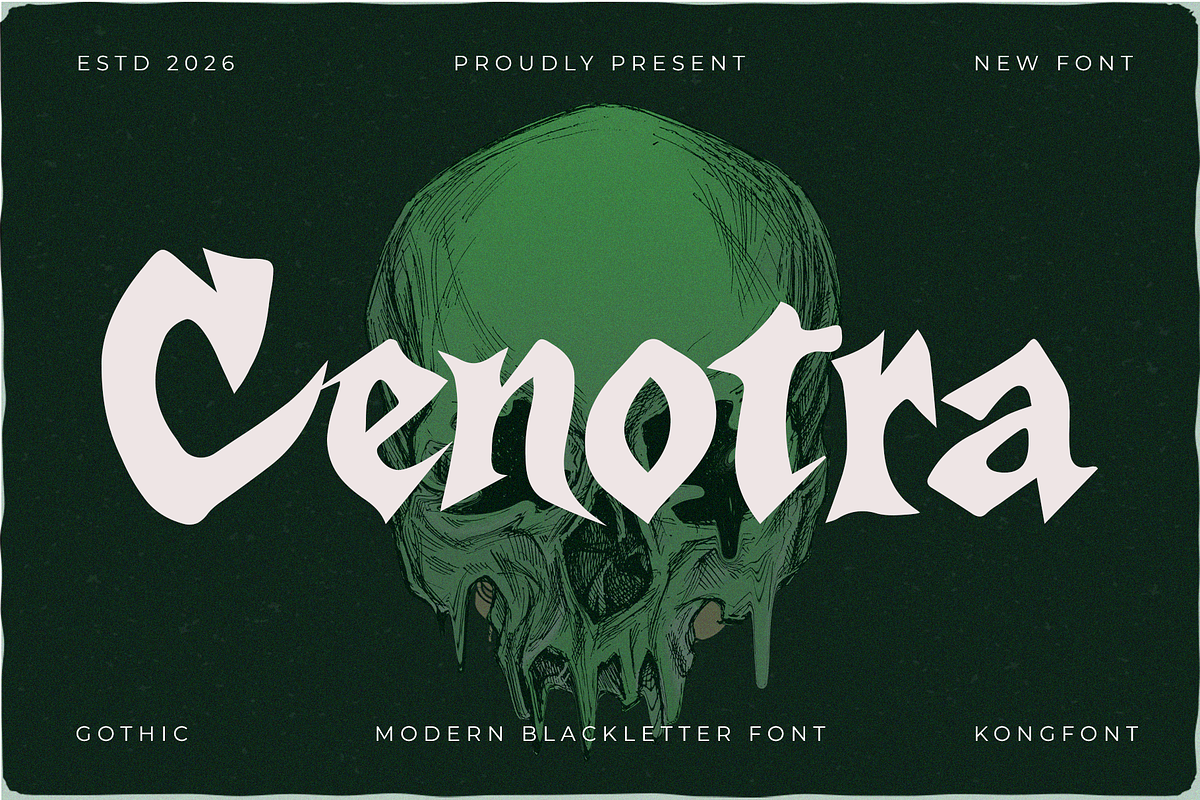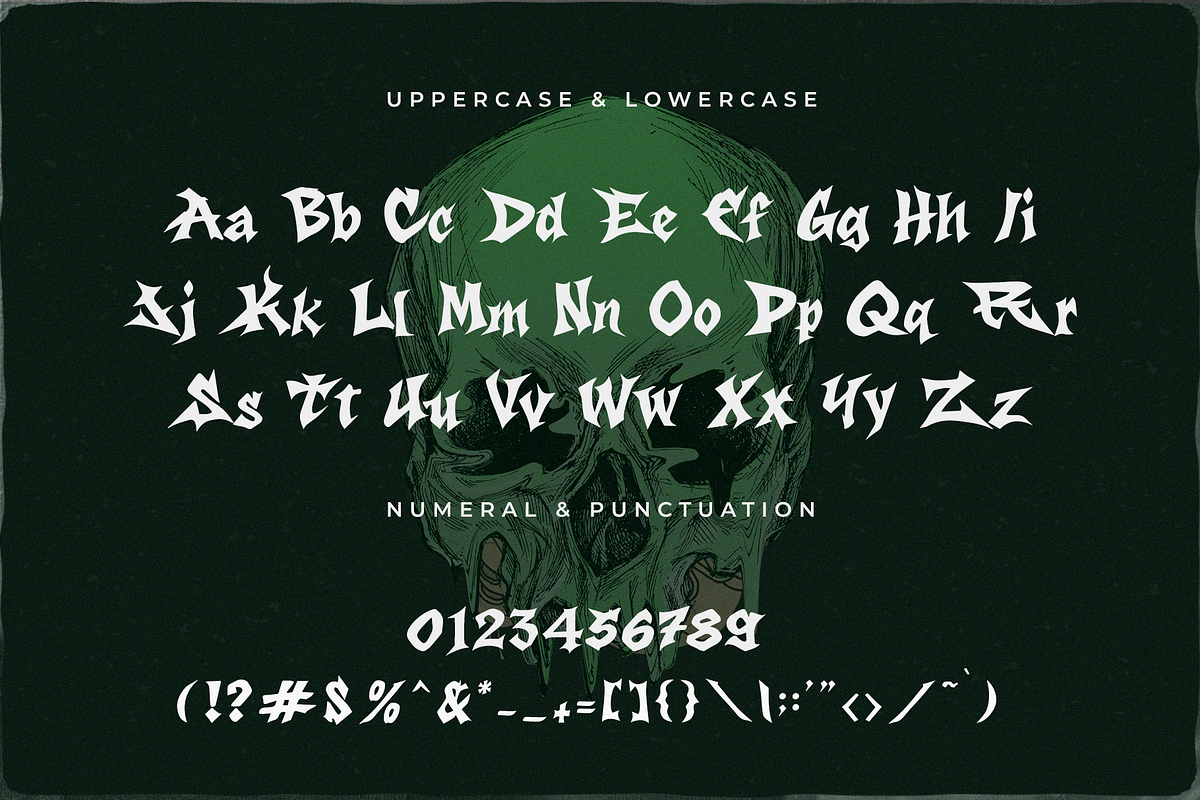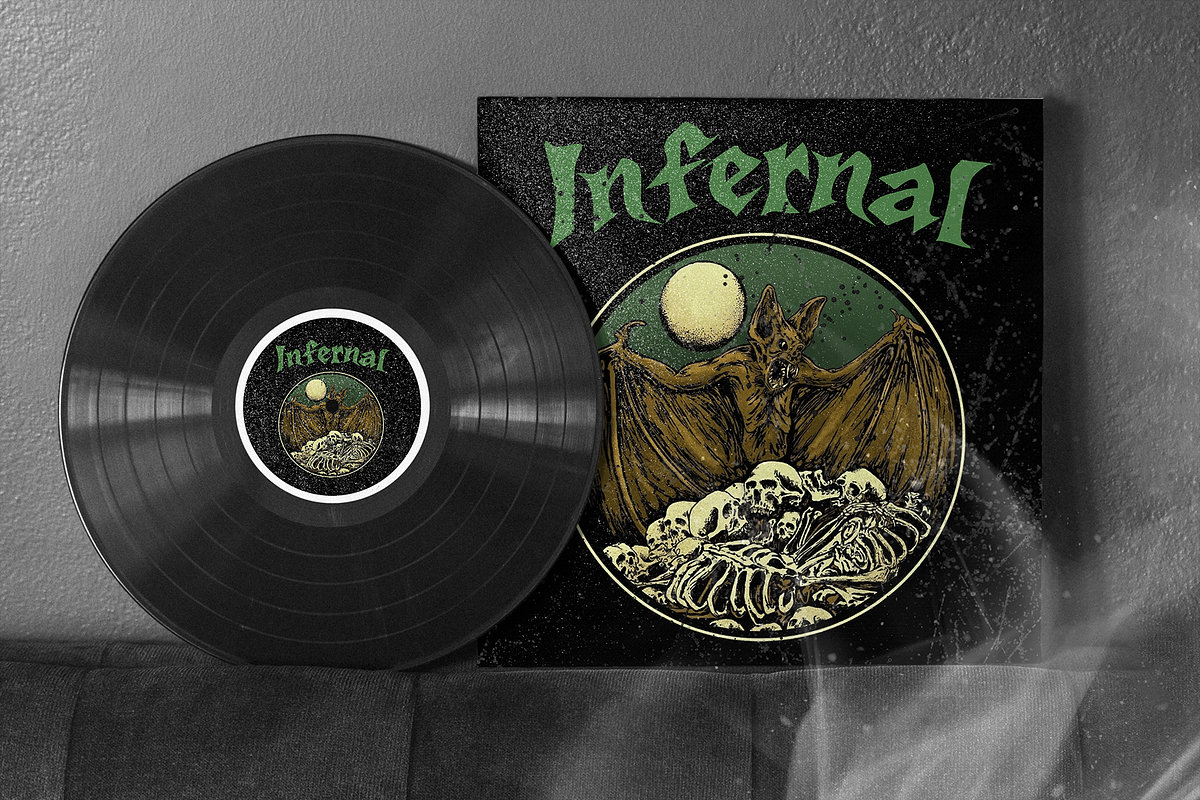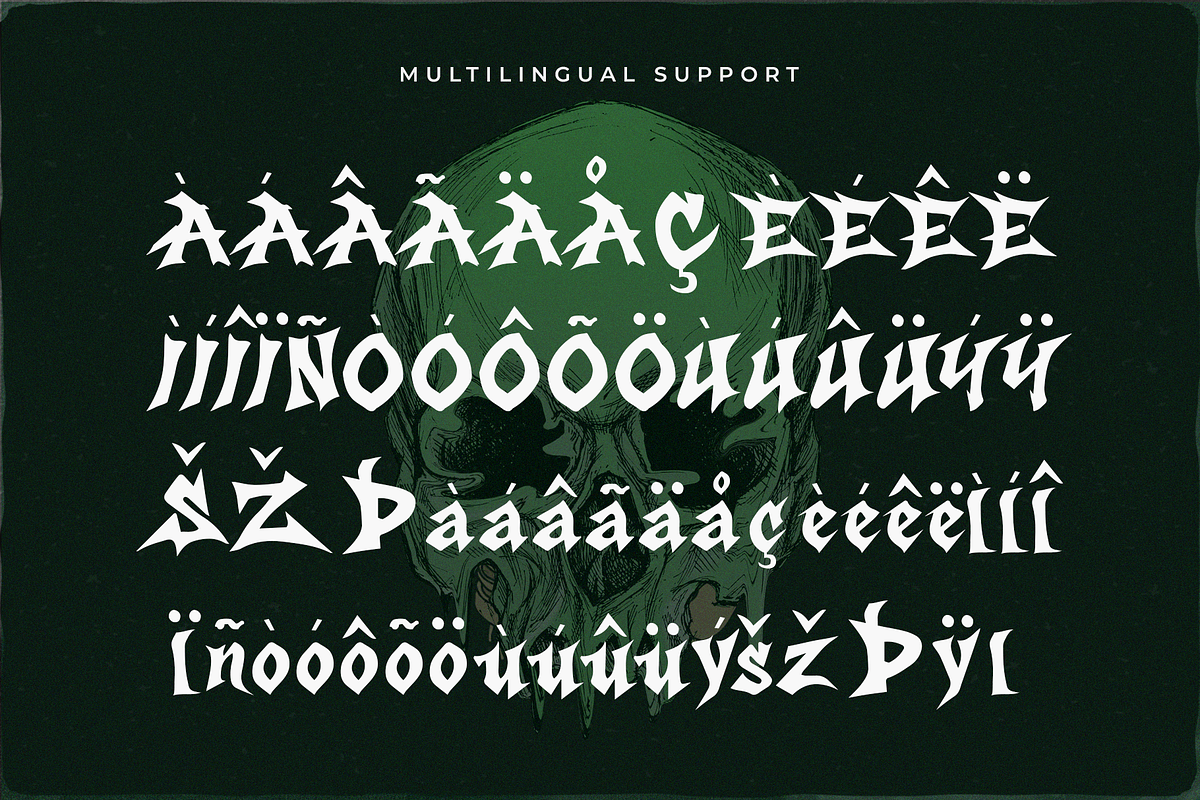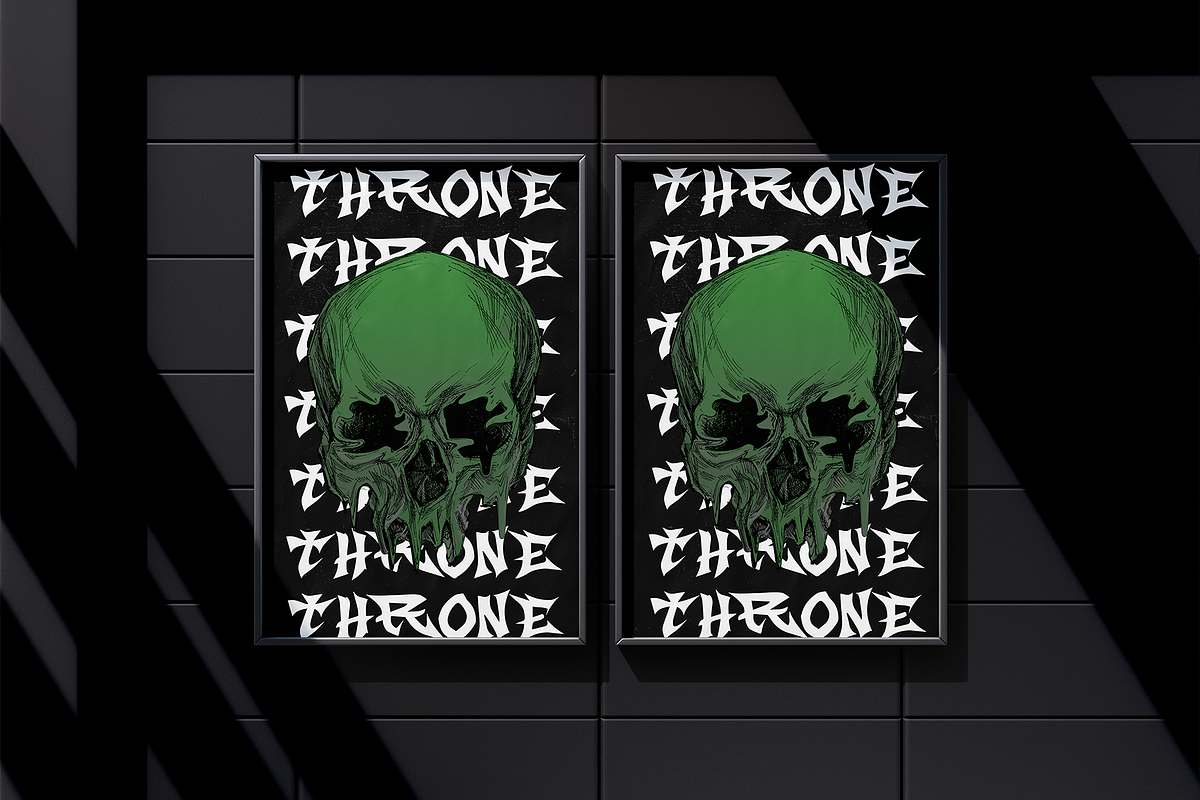
Cenotra – Modern Blackletter Font
Cenotra is a modern blackletter font that reimagines classic gothic lettering with a clean and contemporary approach. Featuring sharp strokes, bold contrast, and refined structure, Cenotra delivers a powerful visual identity while maintaining improved readability for modern design use.
Perfect for logos, streetwear branding, tattoo designs, album covers, posters, barbershop graphics, and bold editorial headlines, Cenotra brings a dark, expressive, and authoritative aesthetic to your projects.